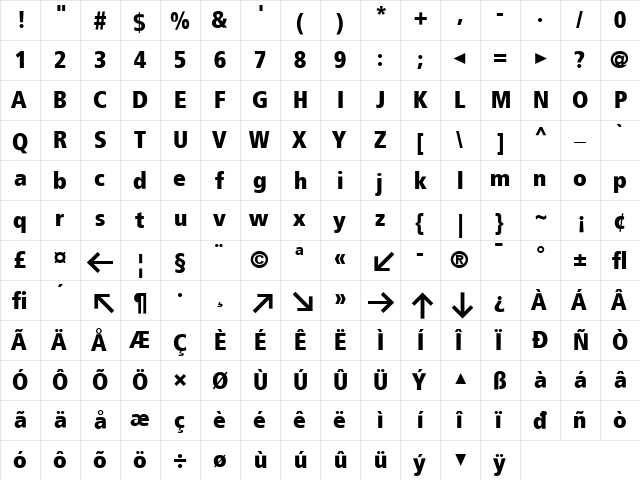
TransitFrontPos Bold
| Foundry | BVG und MetaDesign published by FontShop International |
Design Context for TransitFrontPos Typeface
TransitFrontPos is a composed and adaptable typeface that performs quietly and consistently across a wide range of design contexts. Its bold stroke weight gives it real presence on the page.